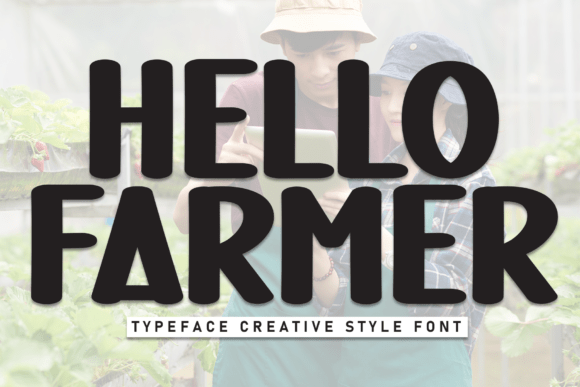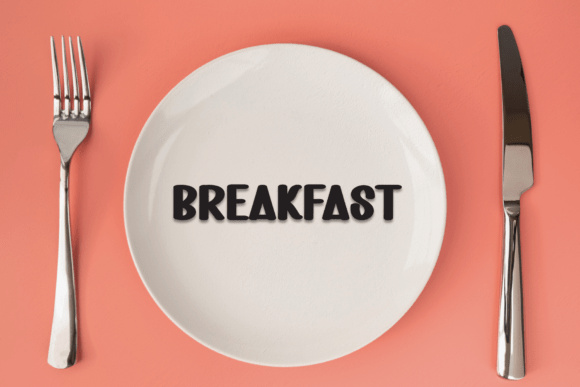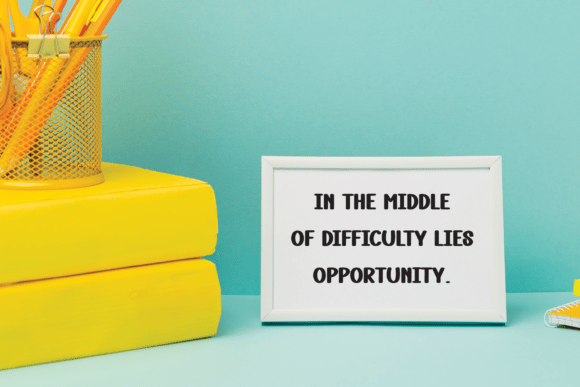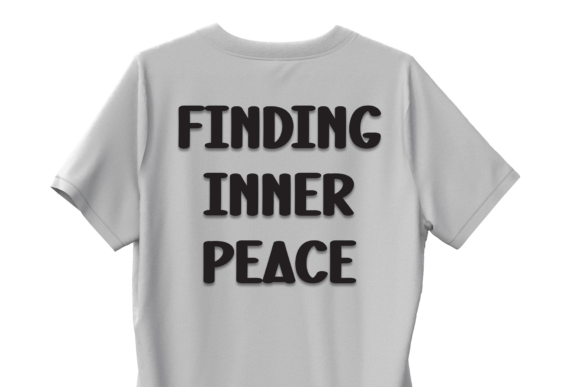
Introducing the Hello Farmer Font, a beautifully crafted typeface designed to elevate your creative projects. Hello Farmer is a casual and neat display font that radiates a fresh, friendly vibe. With clean lines and a relaxed structure, it’s perfect for packaging, posters, and social media graphics. The approachable design adds charm and clarity to projects while maintaining a polished appearance.
Hello Farmer’s friendly, casual style makes it ideal for branding projects targeting a younger demographic, particularly those in food, agriculture, or lifestyle sectors. It excels in headlines, short taglines, and logos, adding a touch of approachability without sacrificing readability. However, its relaxed letterforms aren’t suited for lengthy body text or UI elements requiring high legibility at small sizes.
Pairing Hello Farmer with a clean sans-serif like Open Sans for body copy creates a balanced and professional feel. For a more playful approach, consider a script font such as Great Vibes for secondary text elements, though use it sparingly to maintain visual clarity. A geometric sans-serif like Montserrat could also provide a modern counterpoint, enhancing the font’s inherent charm.
The overall personality of Hello Farmer is approachable and optimistic, projecting a sense of warmth and trustworthiness. Its casual elegance makes it suitable for brands wanting to convey a friendly yet sophisticated image.